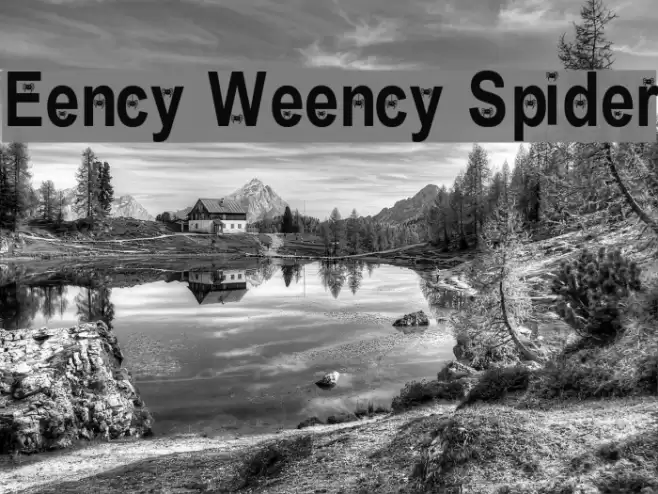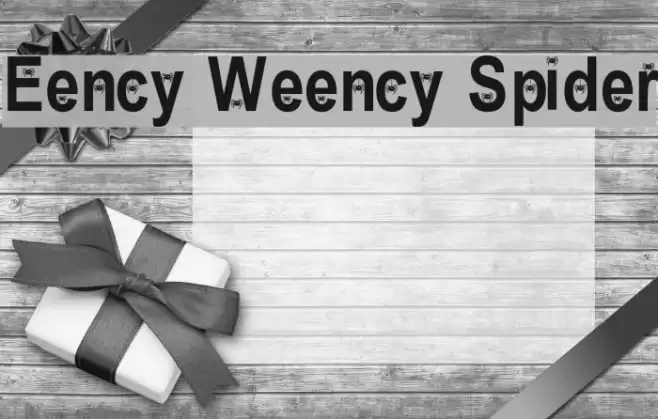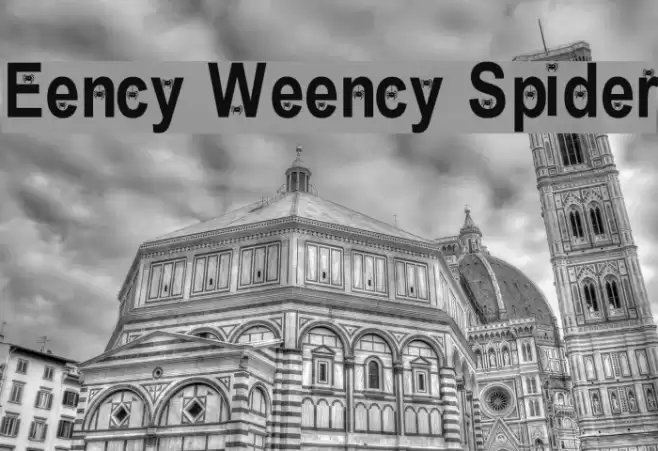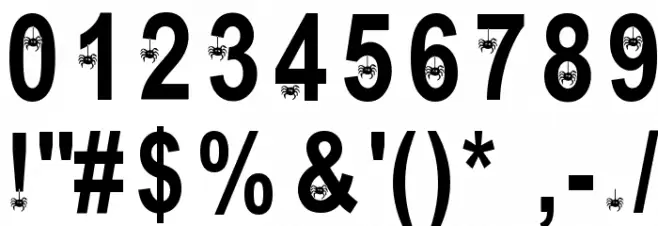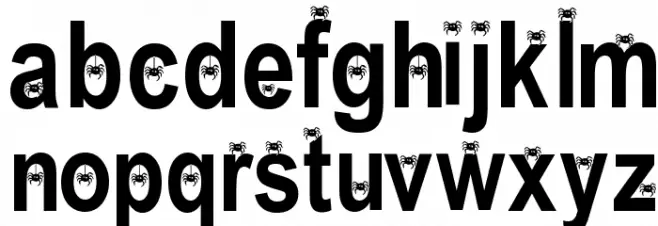
Eency Weency Spider Font
Eency Weency Spider Description
This playful and whimsical font features bold, sans-serif characters with a unique twist: each letter is accompanied by a small spider icon, adding a quirky and fun element to the design. The font maintains a consistent weight and width, ensuring readability while incorporating its decorative aspect. The characters are evenly spaced, providing a balanced and clean appearance. The inclusion of spiders makes it ideal for themed projects, particularly those related to Halloween or children's events. The font's boldness and distinctive style make it stand out, capturing attention with its creative flair.
A bold, sans-serif font with playful spider icons on each character from Images & Symbols fonts.
- Proposed Projects: Ideal for Halloween-themed designs, children's party invitations, playful posters, and creative branding projects.
- Overall Style: Playful, Whimsical
- Use Case: Headlines, Logos, Themed Events